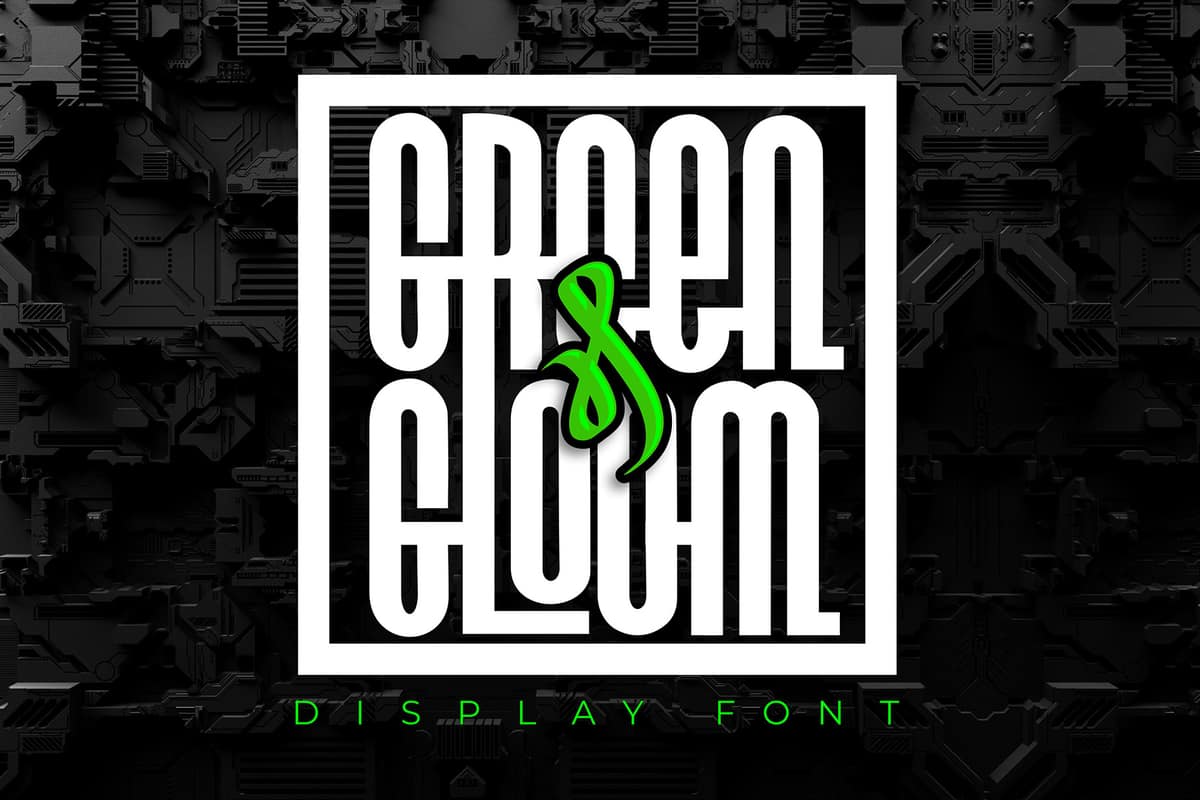
Green & Gloom
Green and Gloom is a striking geometric display font that fuses modern design with a moody edge, perfect for projects that demand a bold, sophisticated presence. With its precise lines and angular shapes, this font brings a distinct, contemporary flair to any creative work.